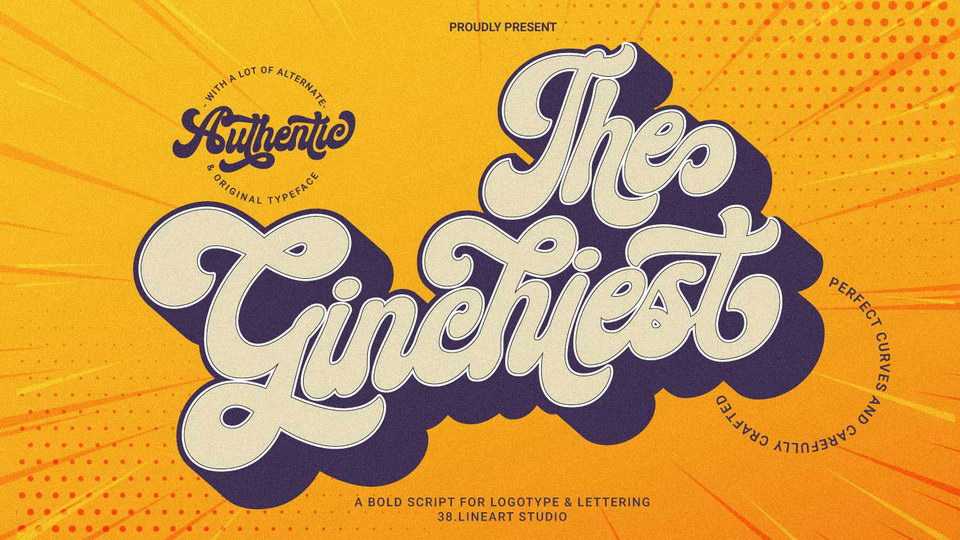
Download The Ginchiest font, a bold script with retro vintage style. According to its name, the word ‘Ginchiest’ is slang for something interesting, the coolest, the hippest, the prettiest, the smartest, the most fun to be around.